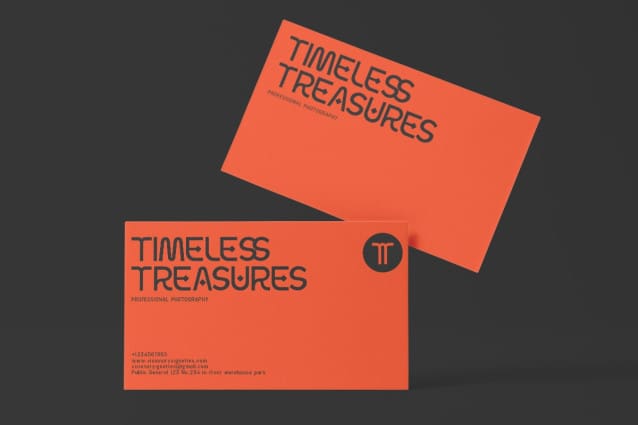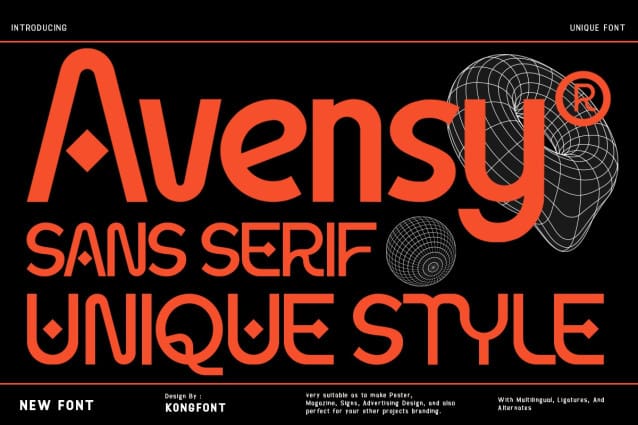
Avensy Font
Avensy Font – Modern Classy Unique Sans Serif Font was designed to present a cool and bold impression to anyone who sees it. This is in line with the characteristics of the letters in the Avensy Font – Modern Classy Unique Sans Serif Font is cool and unique. This font stands tall and exudes a confident vibe. People who read various texts using this type of font don’t bother to be able to read and understand this font. In other words, Avensy Font – Modern Classy Unique Sans Serif Font is legible.
Avensy Font – Modern Classy Unique Sans Serif Font is very suitable for use as a font for all products. Those who like simple letters but are still aesthetic will choose this font. Cool and modern impressions can be used for banners, posters, and merchandise. This font can be printed small or large and still looks great from close up or afar. This font can be used for magazine covers and reading books.
Not only that, Avensy Font – Modern Classy Unique Sans Serif Font can be used as a digital font. The font can be applied to a video intro title and outro. This font is suitable for product branding. These can be product brand tags and advertising posters. This font can also be used as a business card.